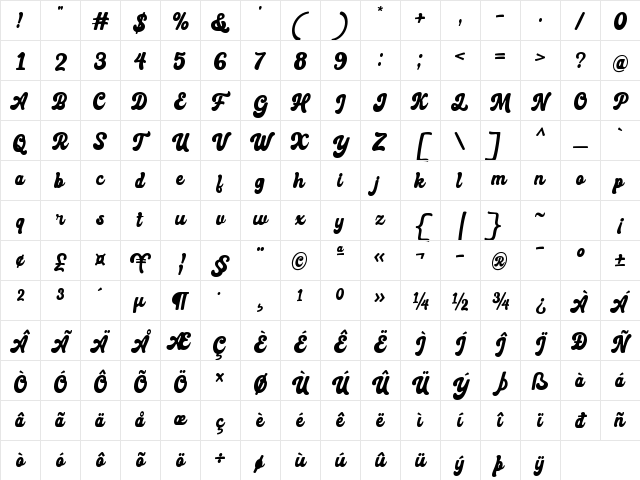
Complete Rodeos Regular glyph index. Displaying only characters natively supported by Rodeos Regular font.
Rodeos is a composed and adaptable typeface that performs quietly and consistently across a wide range of design contexts.